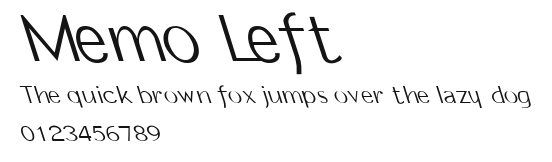
Memo Left Preview
About Memo Left.ttf
Memo Left.ttf is a modern, elegant sans-serif font designed for ultimate readability and visual harmony. Perfect for branding, headlines, web design, and print materials.